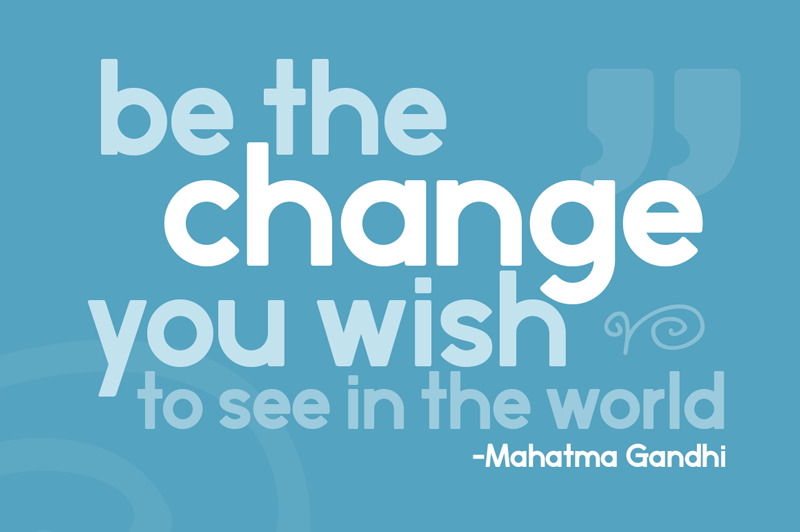
Font name: | Perfectly Amicable |
Author: | Brittney Murphy Design |
An adorably chunky new sans-serif, with soft corners and clean lines. Free for personal use. For commercial use, please purchase a license: http://brittneymurphydesign.com/downloads/perfectly-amicable/ |